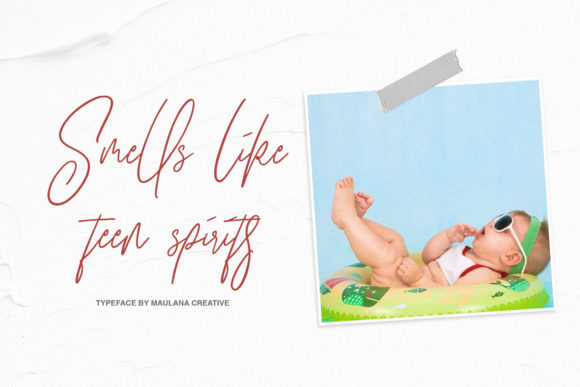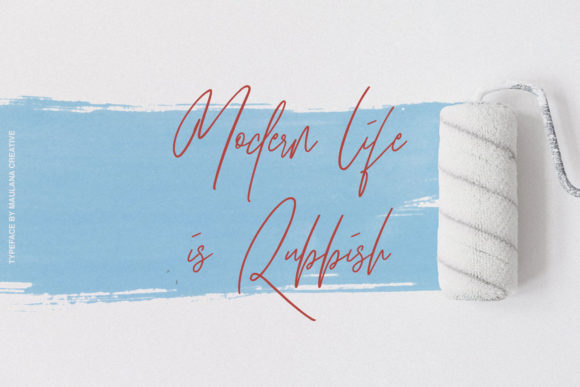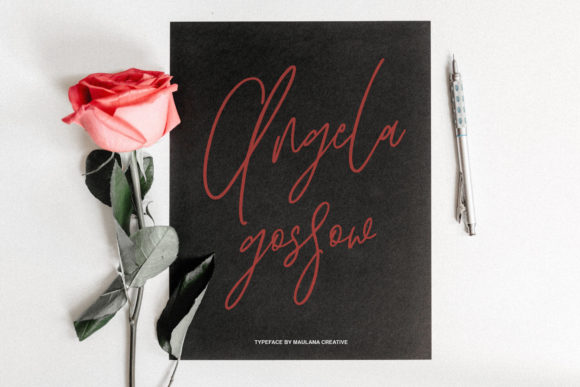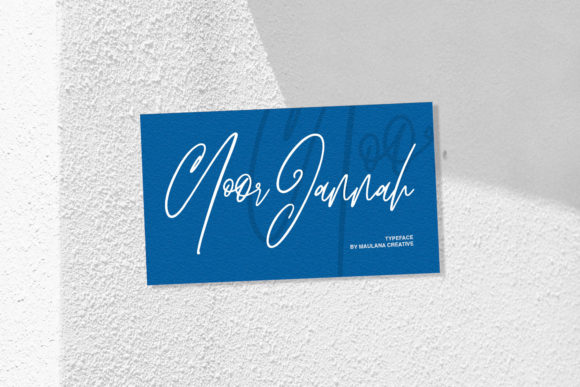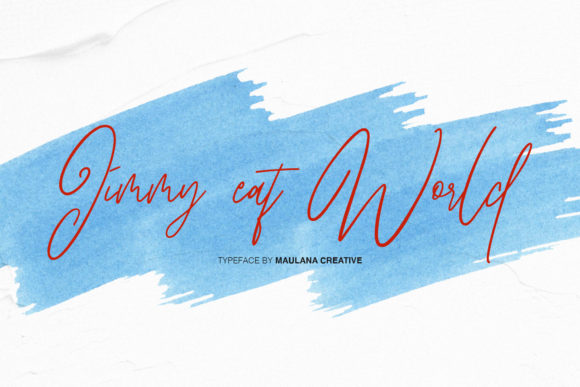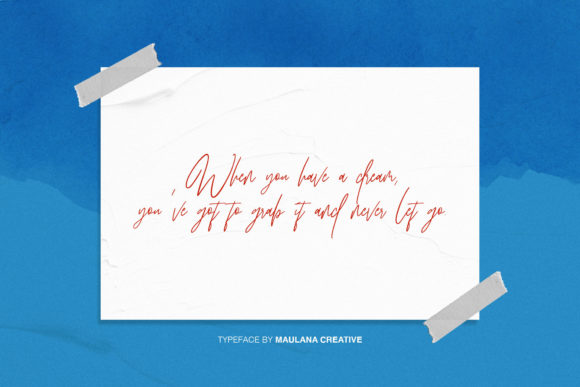
Introduction to Hawkins Font
You know that moment when your creative project is just missing that special something? The spark that takes it from ordinary to extraordinary? For many designers, it’s the right font that can make all the difference. And today, we’re excited to introduce you to a game-changer: the Hawkins Font.
With its handcrafted feel and unique character, the Hawkins Font is the perfect addition to any design. Whether you’re working on a branding project, a website, or any other creative endeavor, this font will help you stand out from the crowd. And the best part? It’s a high-quality design resource that’s available for free download, giving you the flexibility to use it for any project you can imagine.
As a valuable resource for designers, the Hawkins Font offers a level of sophistication and elegance that’s hard to find elsewhere. Its transparent background and versatile style make it perfect for a wide range of design applications, from print materials to digital projects.
Key Features of Hawkins Font
- High-quality design: The Hawkins Font is a well-designed font suitable for various creative projects, offering a unique and stylish touch.
- Transparent background: The Hawkins Font features a transparent background, allowing users to easily customize and combine it with other design elements.
- High-resolution design: The Hawkins Font is designed at a high resolution, ensuring that it remains crisp and clear even when used in large sizes or at high zoom levels.
- Perfect for digital designs: The font’s design and features make it ideal for digital designs, such as website headers, social media graphics, and other online content.
Honest Review: Hawkins Font
I recently had the chance to work with the Hawkins Font, and I must say it’s been a game-changer for my creative projects. This font is a high-quality design resource that’s perfect for anyone looking to add a touch of elegance to their work.
One of the things that stands out about the Hawkins Font is its versatility. It works well in a variety of settings, from formal documents to creative brochures. The font is also available for free download, making it a great resource for designers on a budget.
Here are some of the things that I like about the Hawkins Font:
- ✨ Transparent background, making it easy to customize
- ⚠️ Limited character set, which may not be suitable for complex documents
Overall, I’m really impressed with the Hawkins Font. It’s a great addition to any designer’s toolkit, and I would highly recommend it to anyone looking for a high-quality font for their creative projects.
Hawkins Font
Hawkins Font is a versatile design resource that can be used for a variety of purposes, including branding, marketing materials, and digital art. Its transparent background makes it ideal for use on images with complex backgrounds.
Tips for Getting the Most Out of Hawkins Font
To get the most out of Hawkins Font, experiment with different font sizes and styles to create visually appealing designs. You can also combine it with other design elements, such as images and graphics, to create a unique and creative project.
Can I use the Hawkins Font with a transparent background?
Yes, the Hawkins Font supports transparency, allowing you to use it with a transparent background. This feature is especially useful when designing for web or digital applications, where a transparent font can help create a seamless and modern design.